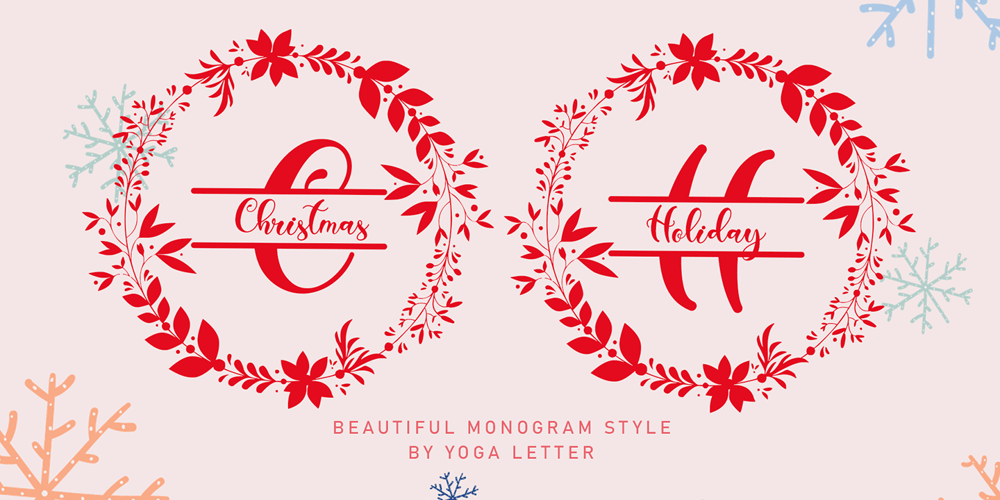
Monogram Font Family was designed by Isroni Yoga Prasetya and published by Yoga Letter. Monogram contains 2 styles and family package options. “Christmas Holiday Monogram” is a beautiful and natural monogram font. This font is equipped with a floral decorative monogram, so it is very suitable for Christmas, Valentine’s, winter, wedding invitations, weddings, engagements and others. Equipped with uppercase letters, lowercase letters, numerals, punctuations, monograms and multilingual support.